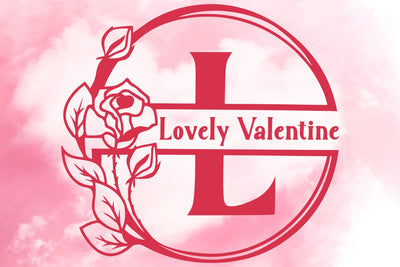
Lovely Valentine Monogram
"Lovely Valentine Monogram" is a beautiful and elegant serif monogram font. This font is decorated with monograms combined with beautiful flowers. This font is equipped with uppercase, lowercase, ligatures, numerals, punctuations, and multilingual support. Very suitable for valentine, christmas, wedding, invitations, stickers, banners, posters, logos, and others.